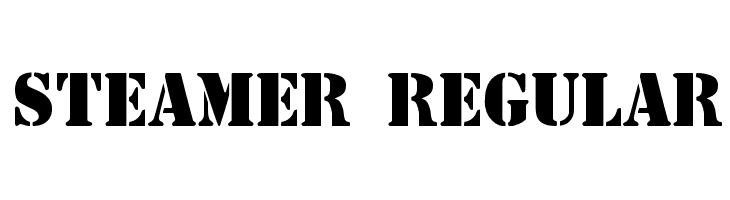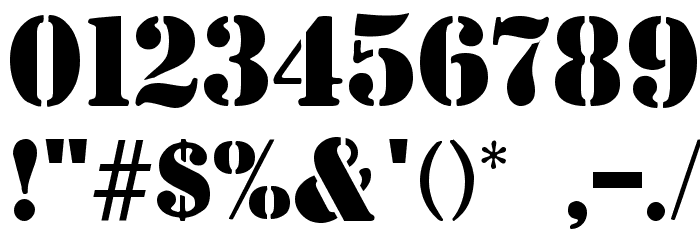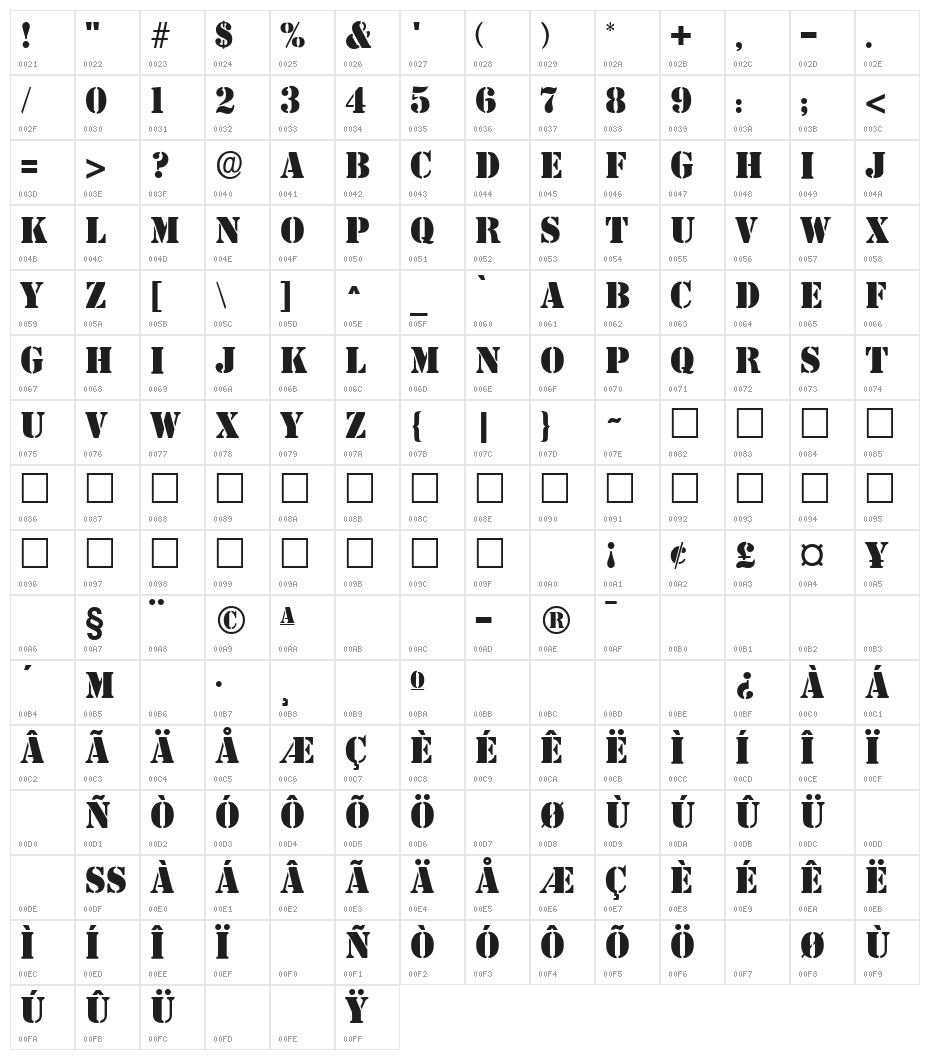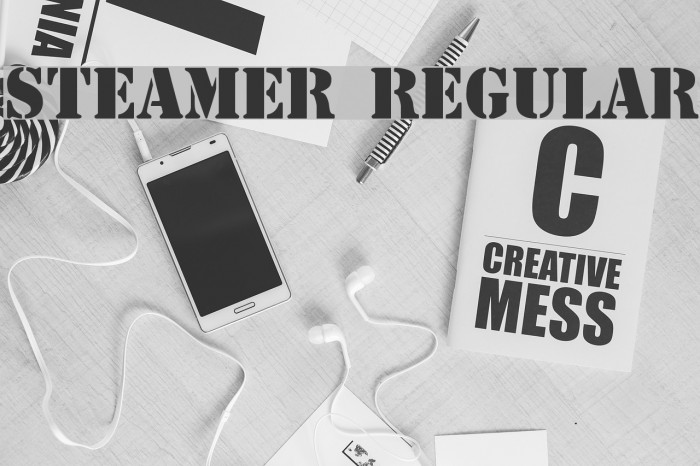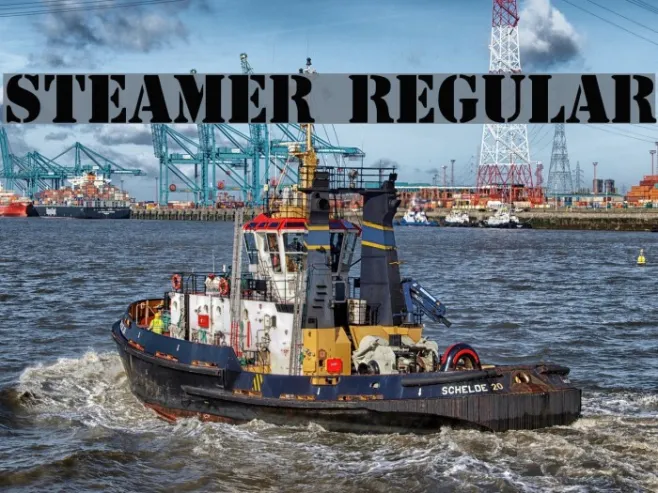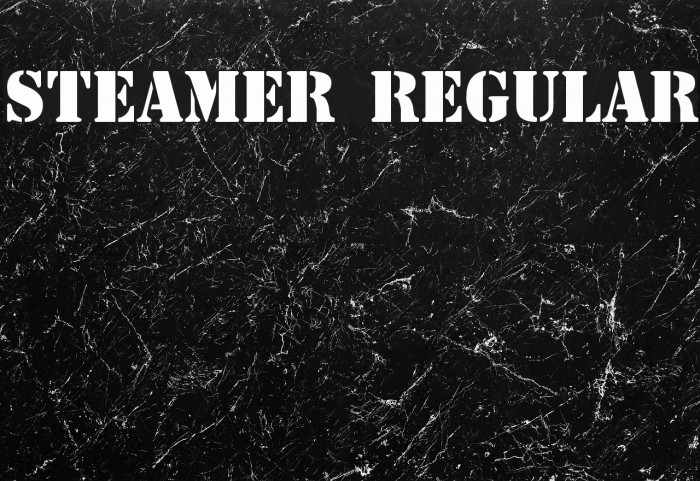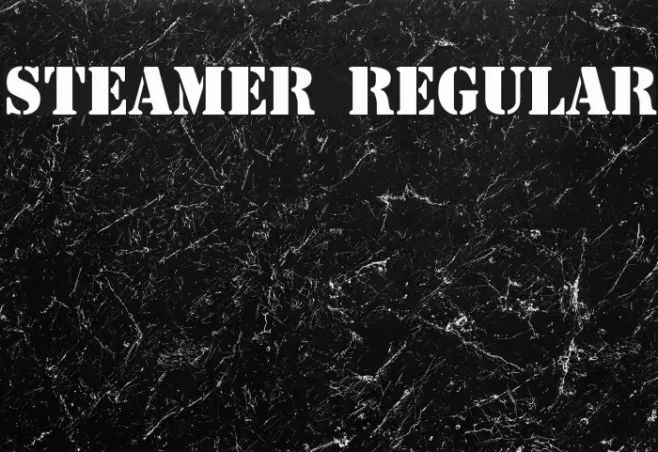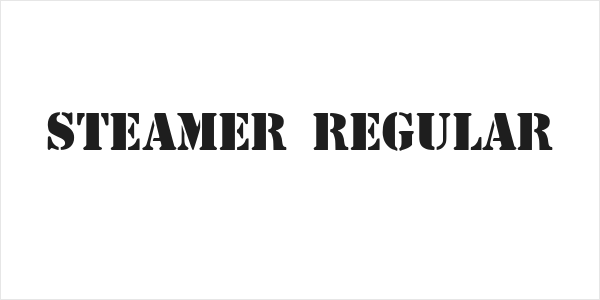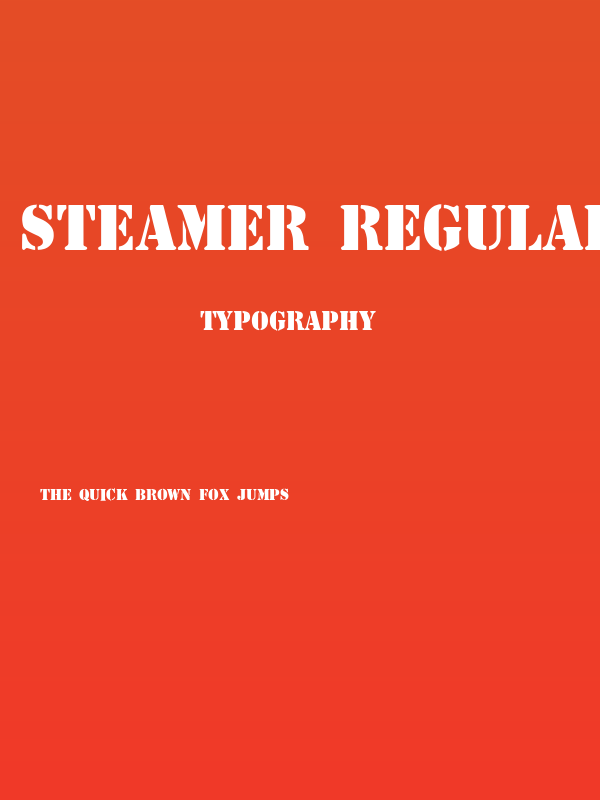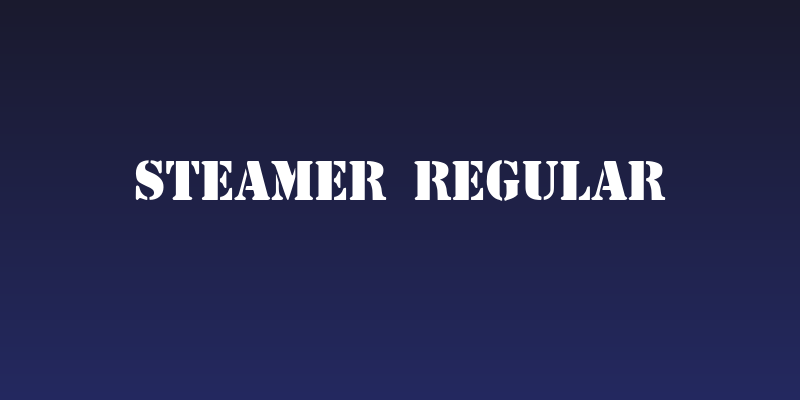
Steamer Regular Font
Steamer Regular Description
This font features a bold and striking design with a stencil-like appearance. The characters are constructed with thick, solid strokes and distinctive cut-out sections that create a dramatic and industrial feel. The uppercase letters are particularly prominent, with a strong presence that commands attention. The numerals and special characters maintain this bold style, ensuring consistency across all elements. This font's unique design makes it ideal for projects that require a strong visual impact.
| Overall Style | Industrial, Bold, Stencil |
| Proposed Projects | Ideal for posters, signage, branding, and any project requiring a bold, impactful typeface. |